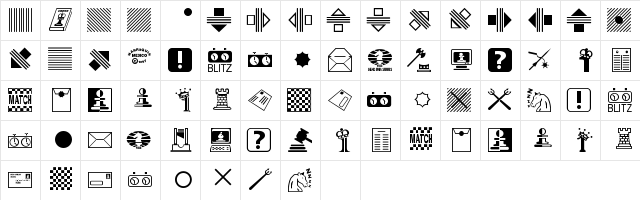
Chess Miscel Regular
Design Context for Chess Miscel Typeface
Chess Miscel is a composed and adaptable typeface that performs quietly and consistently across a wide range of design contexts.